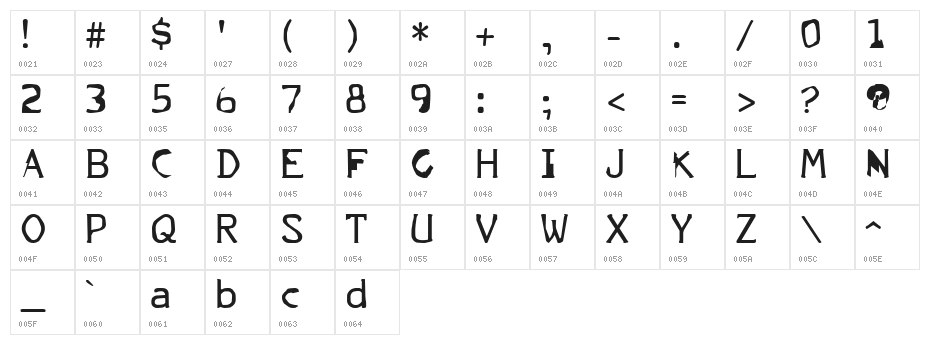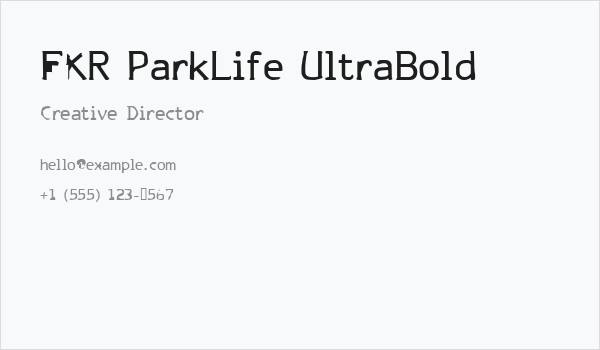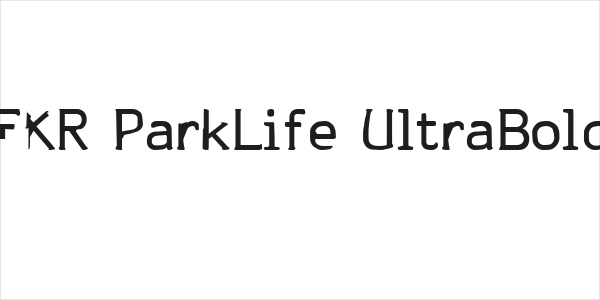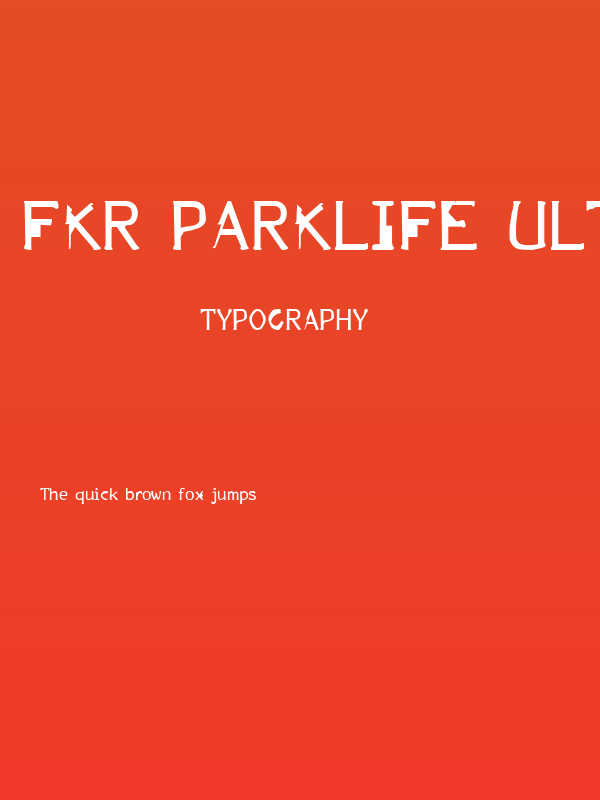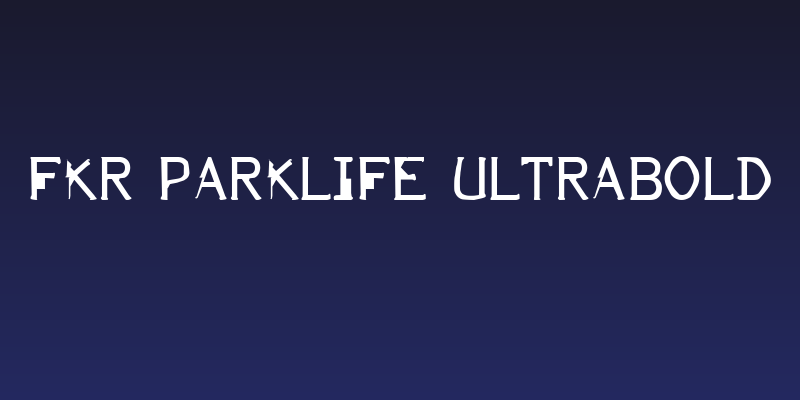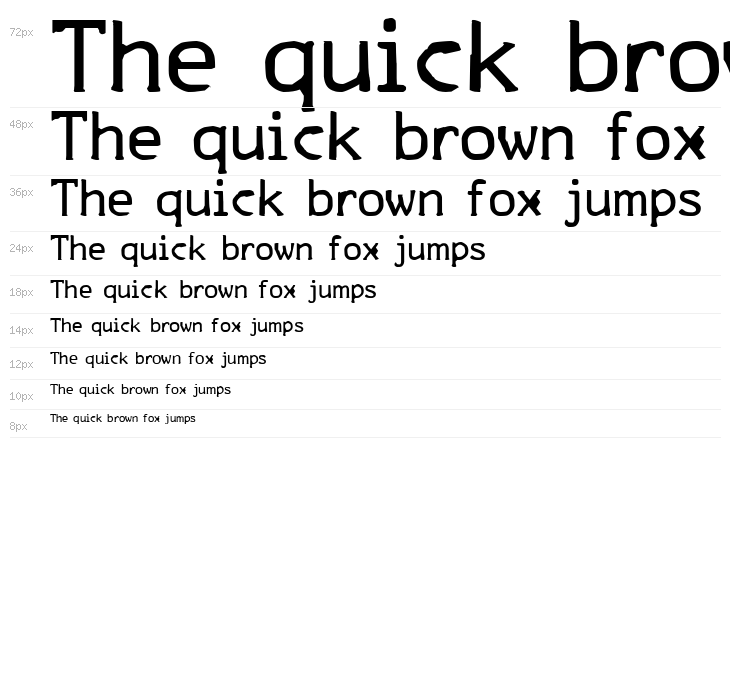
FKR ParkLife UltraBold Font
FKR ParkLife UltraBold Description
This font features a bold and dynamic style with a playful, slightly irregular design. The characters have a hand-drawn quality, giving them a unique and artistic appearance. The uppercase letters are bold and prominent, while the lowercase letters maintain a consistent style with a slightly more subdued presence. The numbers are robust and match the overall aesthetic, making them stand out effectively. Special characters are included, maintaining the same bold and artistic style. This font's distinctive look makes it ideal for creative projects that require a touch of personality and flair.
| Overall Style | Artistic, Playful |
| Proposed Projects | Ideal for posters, album covers, branding, and creative design projects. |